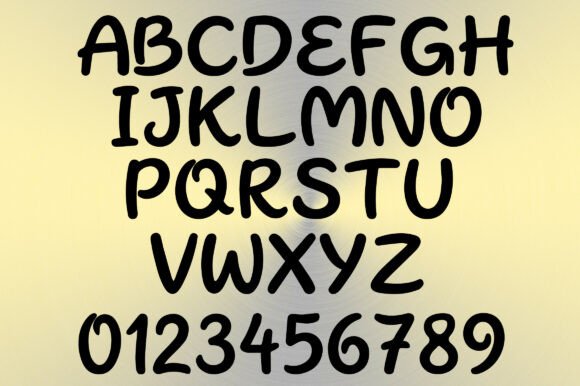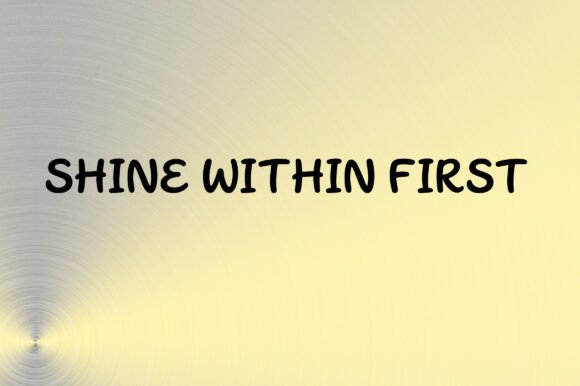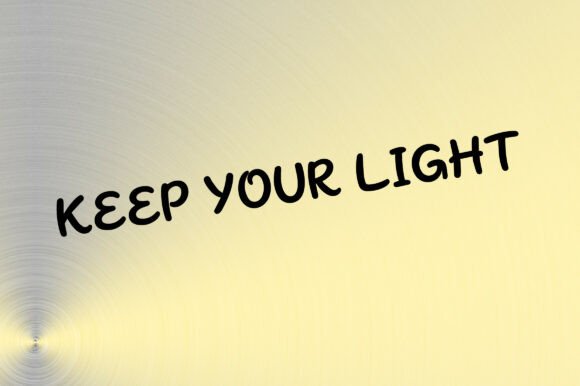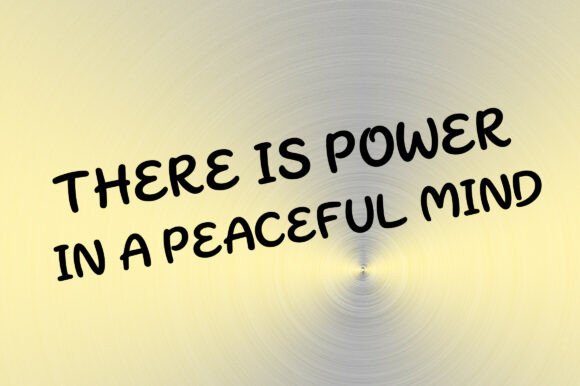
Introducing Elaina Font: The Playful Display Font for Creative Projects
Are you tired of using the same old fonts for your creative projects? Look no further than Elaina Font, a bold and playful display font that’s sure to add a touch of personality to your designs. With its hand-drawn style and soft rounded charm, Elaina Font is perfect for designers and crafters who want to create eye-catching and memorable statements.
The Characteristics of Elaina Font
Elaina Font is a unique and charming font that’s designed to make a statement. Its uppercase letterforms feature thick smooth strokes, gentle curves, and slightly irregular handcrafted details that create a warm and friendly personality. The font is designed with uppercase letters A–Z and numbers 0–9, making it perfect for a variety of creative projects.
What Makes Elaina Font Special?
So, what sets Elaina Font apart from other fonts? Here are just a few of its special features:
- Hand-drawn style: Elaina Font has a unique, hand-drawn style that’s perfect for creating a personal and playful touch.
- Soft rounded charm: The font’s soft rounded curves and smooth strokes give it a friendly and approachable feel.
- Thick and bold: Elaina Font is a bold font that’s perfect for making a statement.
- Uppercase letters and numbers: The font includes uppercase letters A–Z and numbers 0–9, making it perfect for a variety of creative projects.
Uses for Elaina Font
Elaina Font is a versatile font that can be used for a variety of creative projects, including:
- Branding: Use Elaina Font to create a bold and memorable brand identity.
- Posters: Elaina Font is perfect for creating eye-catching posters that grab attention.
- Packaging: Add a touch of personality to your packaging with Elaina Font.
- Logos: Use Elaina Font to create a unique and memorable logo for your business or brand.
- Invitations: Elaina Font is perfect for creating playful and memorable invitations.
- Social media graphics: Use Elaina Font to create eye-catching social media graphics that stand out.
- Creative projects: Elaina Font is perfect for any creative project that needs a fun and memorable statement.
Why Designers and Crafters Love Elaina Font
Designers and crafters love Elaina Font for its unique and playful personality. Here are just a few reasons why:
- Easy to read: Despite its bold and playful style, Elaina Font is easy to read and understand.
- Versatile: Elaina Font can be used for a variety of creative projects, making it a great addition to any designer’s toolkit.
- Unique: Elaina Font has a unique and charming personality that sets it apart from other fonts.
Tips for Using Elaina Font
Here are a few tips for using Elaina Font in your creative projects:
- Use it boldly: Elaina Font is a bold font, so don’t be afraid to use it in large sizes to make a statement.
- Experiment with colors: Elaina Font looks great in a variety of colors, so don’t be afraid to experiment and find the perfect color for your project.
- Pair it with other fonts: Elaina Font pairs well with other fonts, so feel free to get creative and experiment with different font combinations.
Elaina Font is a playful and bold display font that’s perfect for designers and crafters who want to add a touch of personality to their creative projects. With its hand-drawn style, soft rounded charm, and thick smooth strokes, Elaina Font is sure to make a statement. Whether you’re working on a branding project, creating a poster, or designing a social media graphic, Elaina Font is a great choice.